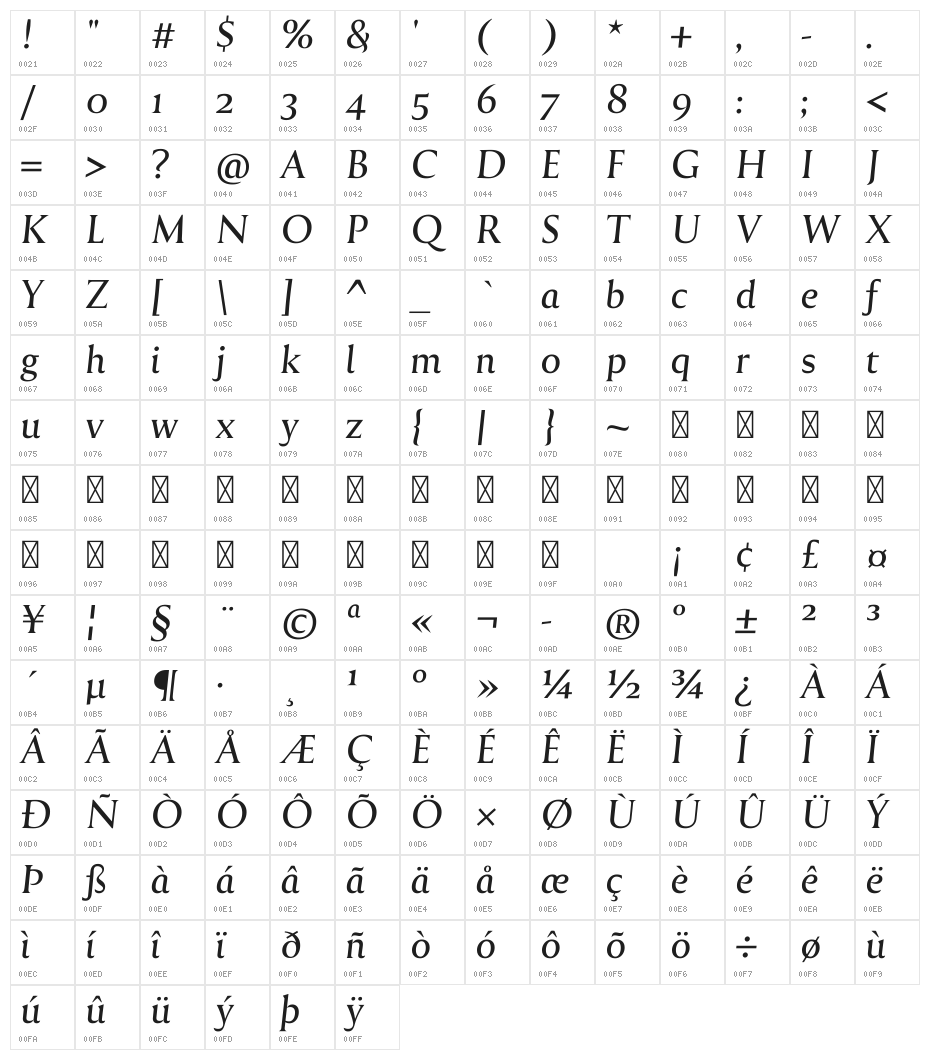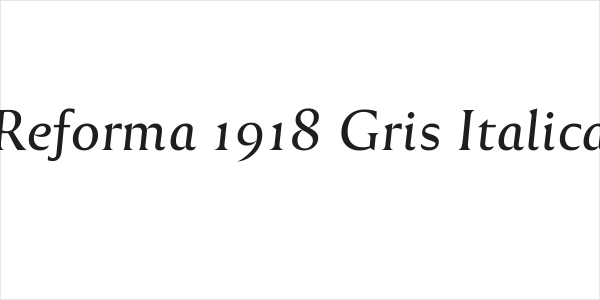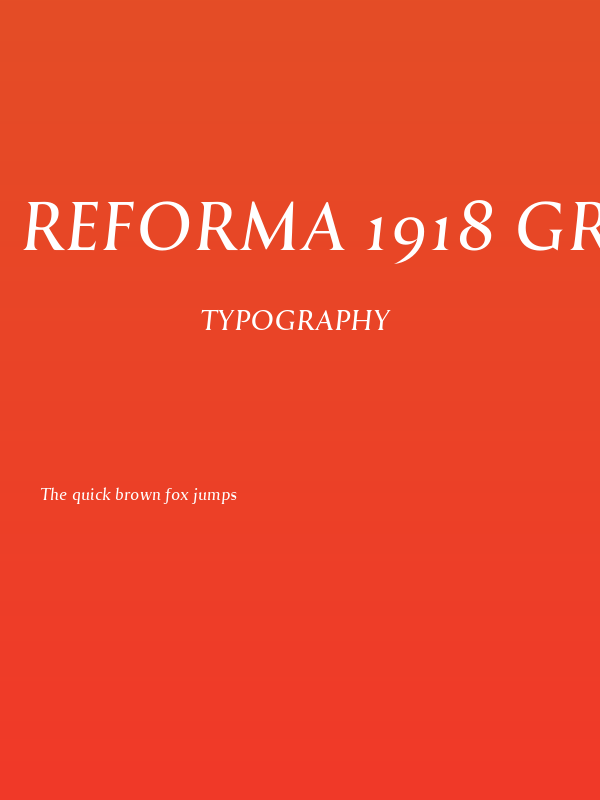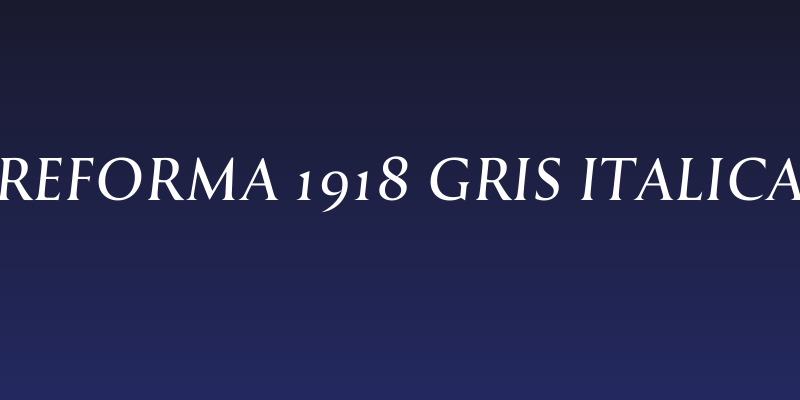
Reforma 1918 Gris Italica Font
Reforma 1918 Gris Italica Description
This font features a classic serif style with elegant, flowing lines and a slight italic slant. The uppercase letters are tall and stately, while the lowercase letters maintain a consistent and harmonious appearance. The numerals are distinct and easy to read, with a traditional design that complements the overall aesthetic. Special characters are well-integrated, providing a cohesive look across all glyphs. The font's design is both timeless and versatile, making it suitable for a variety of applications.
| Use Case | Headlines, Body text |
| Proposed Projects | Ideal for book covers, formal invitations, and editorial design. |